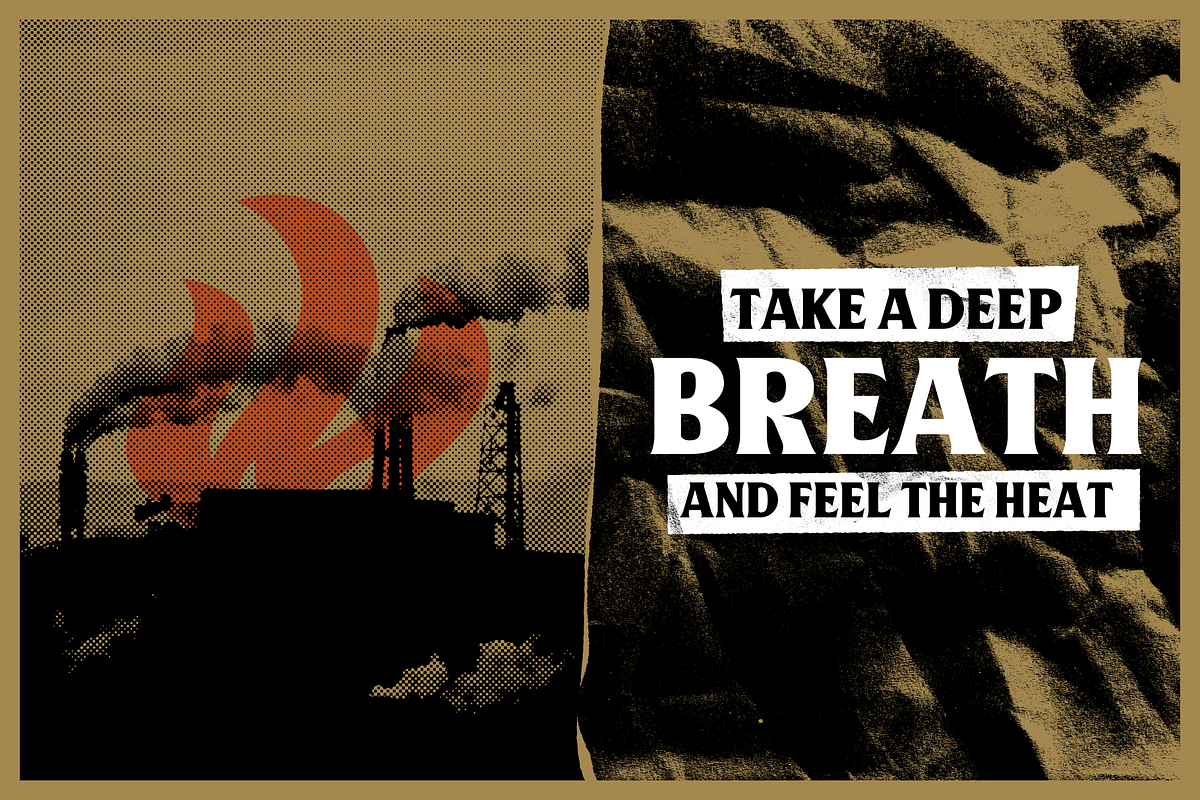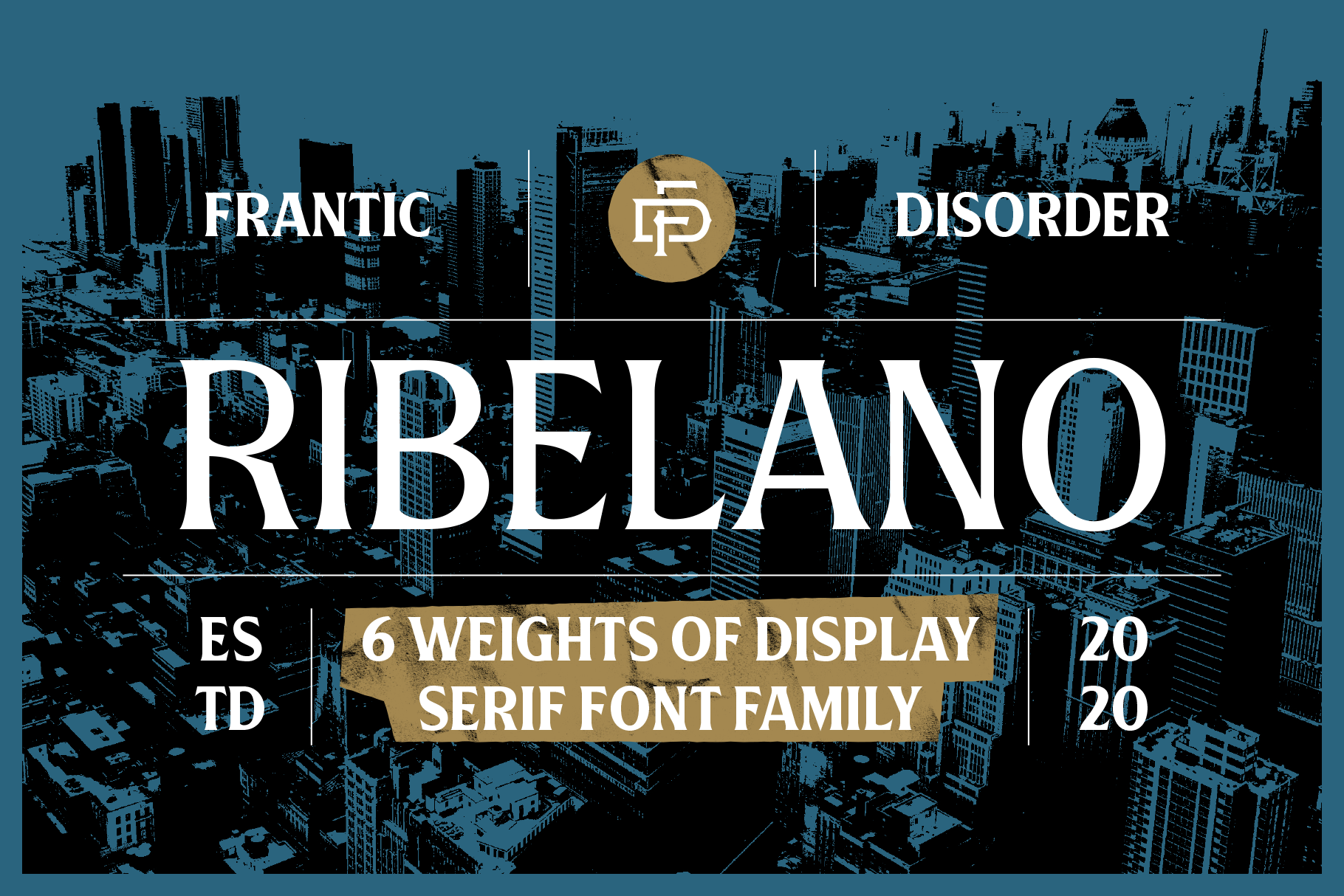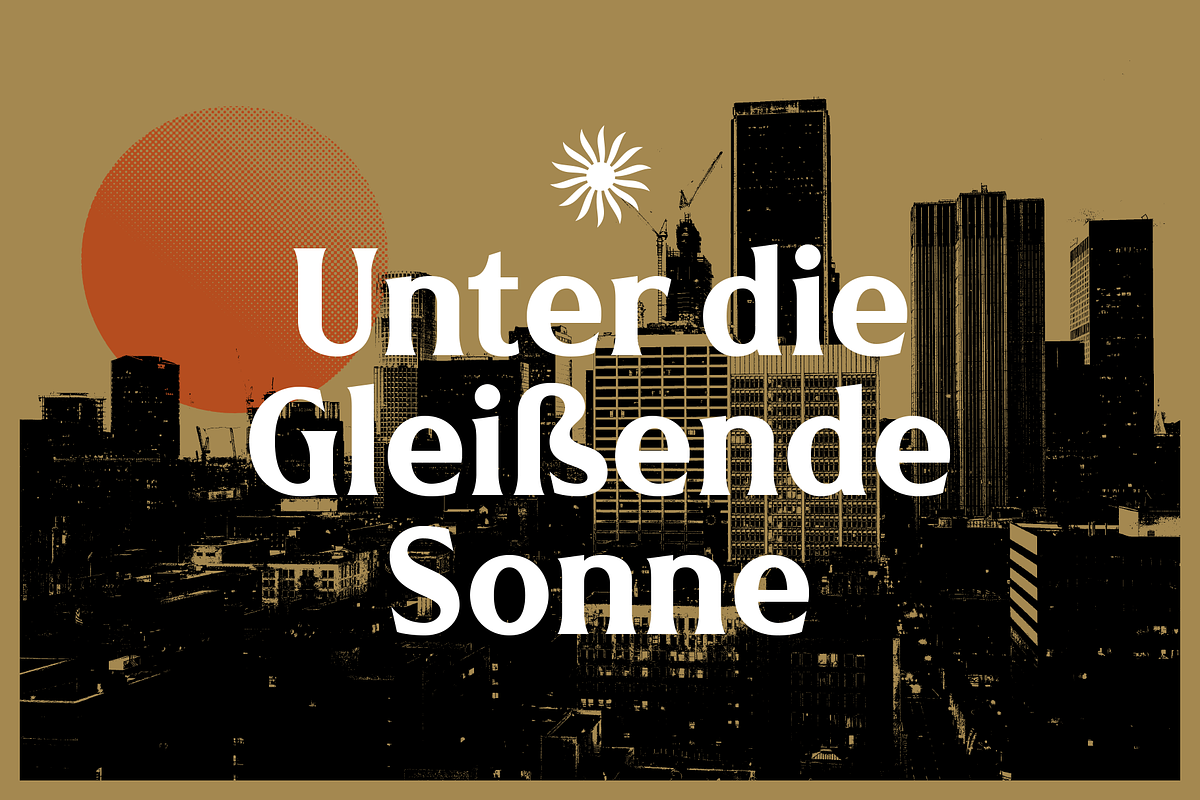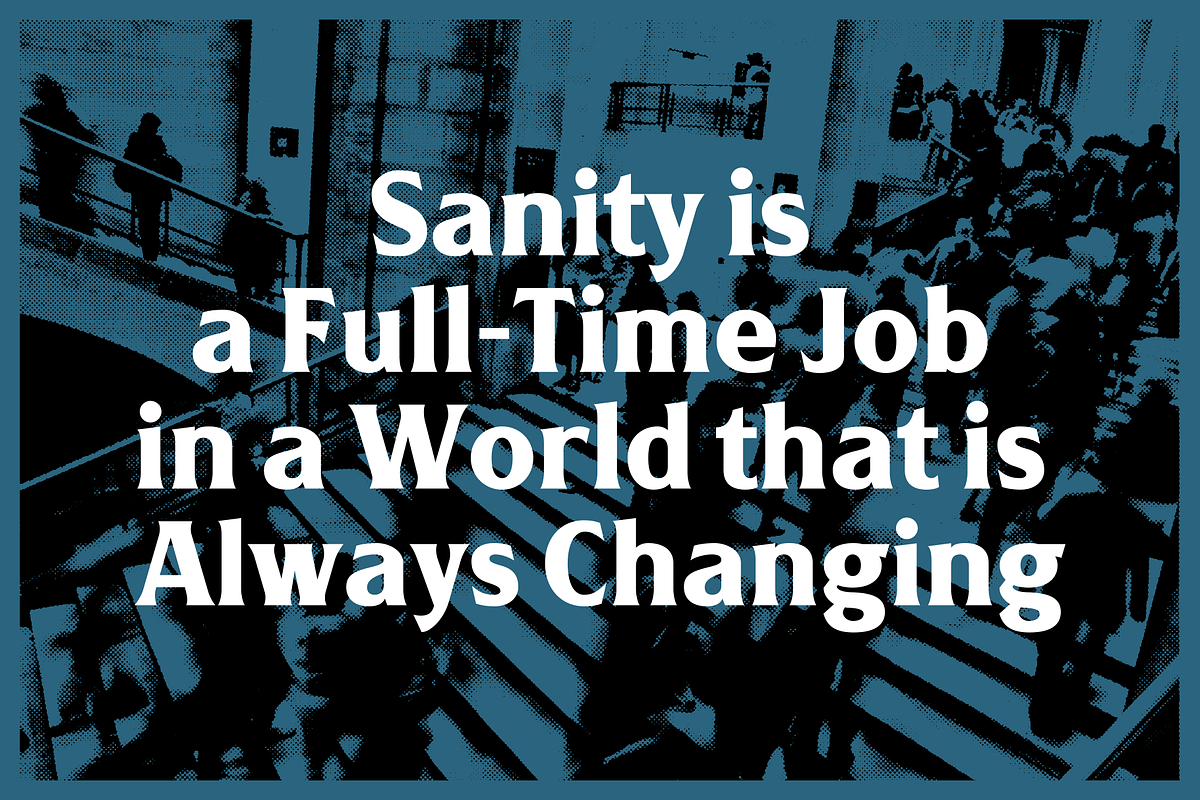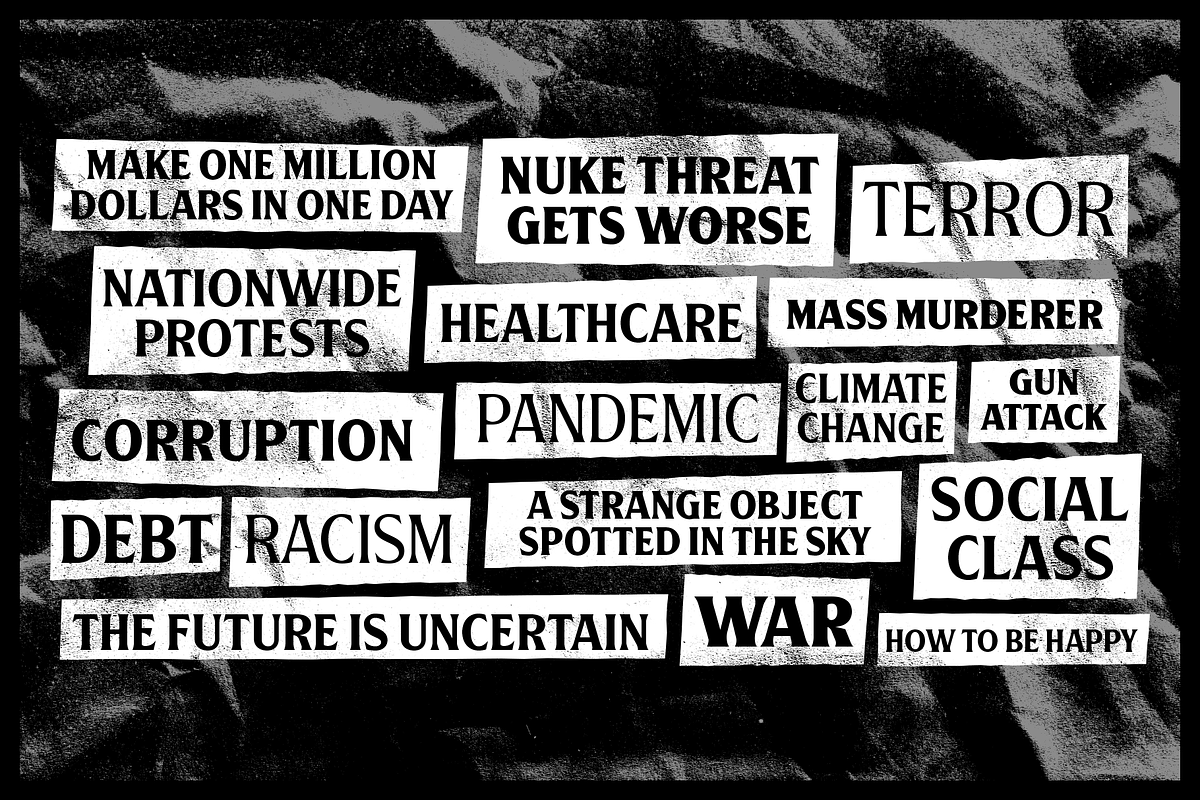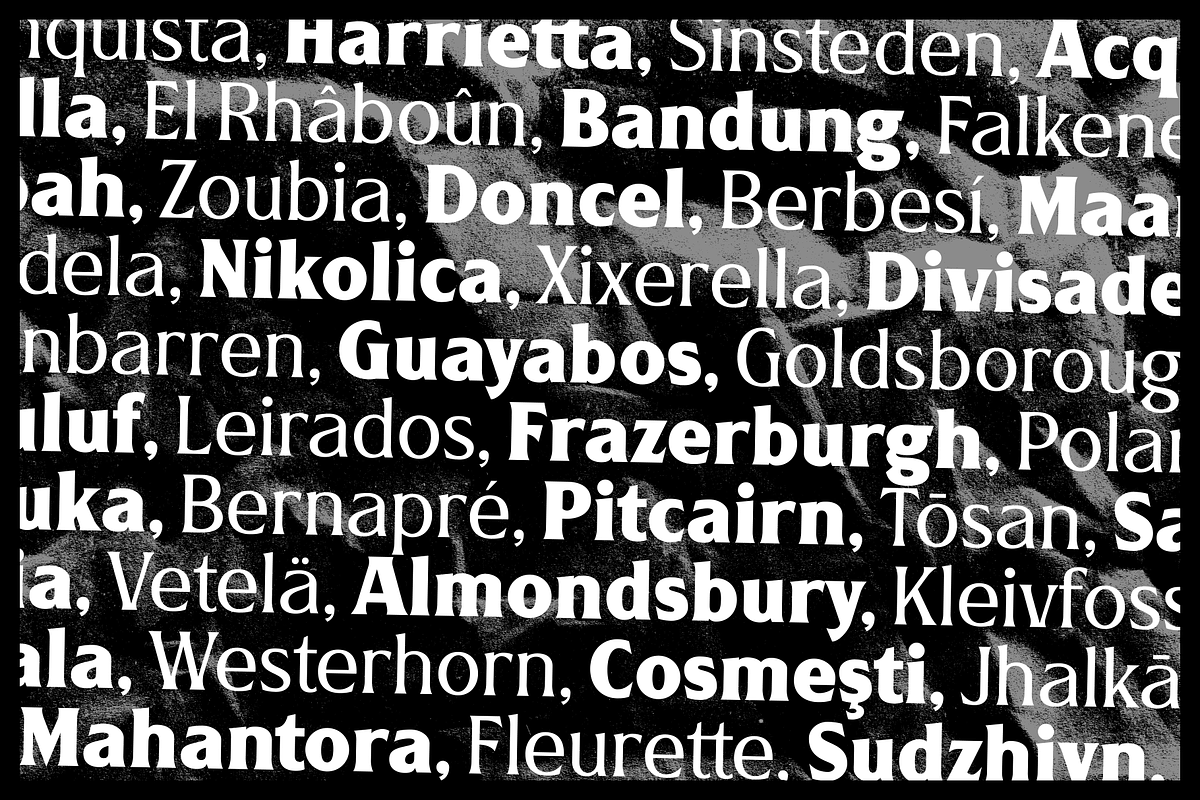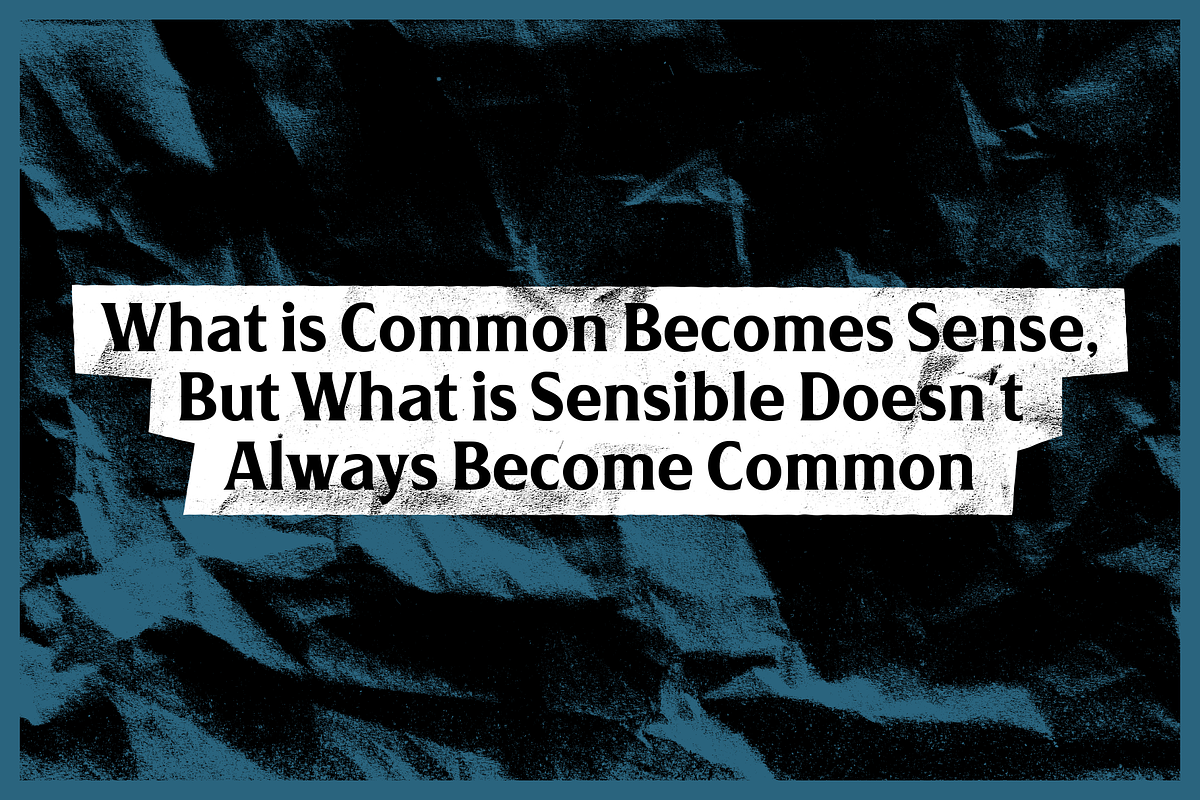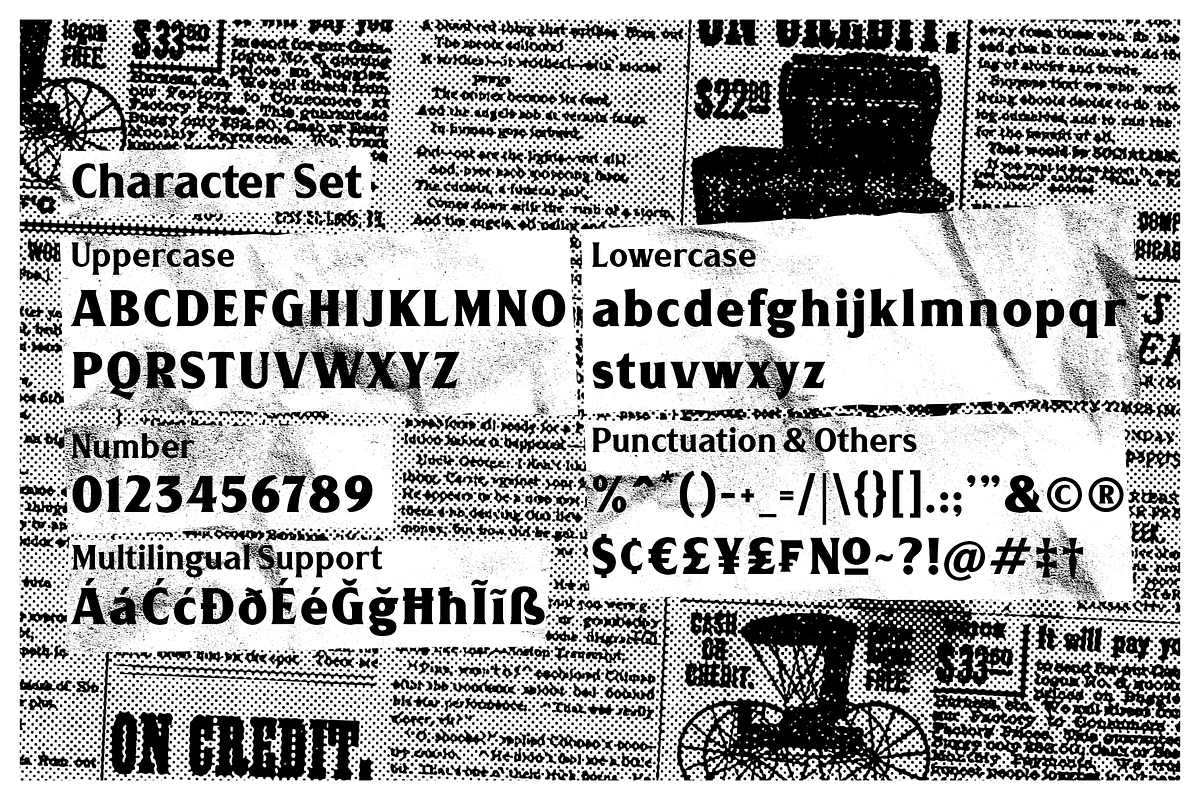
Ribelano Typeface
Ribelano is a flared-serif display typeface that represents clearness, contrast, and sharpness. The font comes in 6 different weight styles from Light to Black and it comes with 300+ glyphs. Perfectly suited for display needs such as heading, branding, logos, poster, etc.